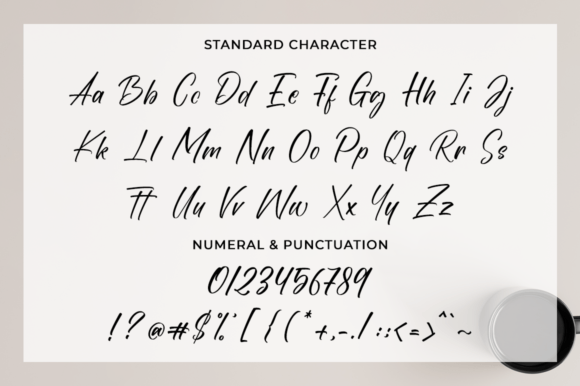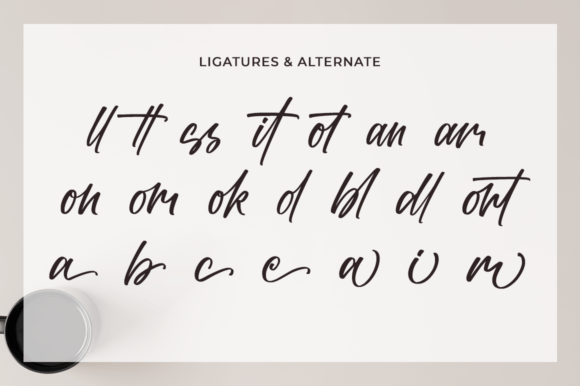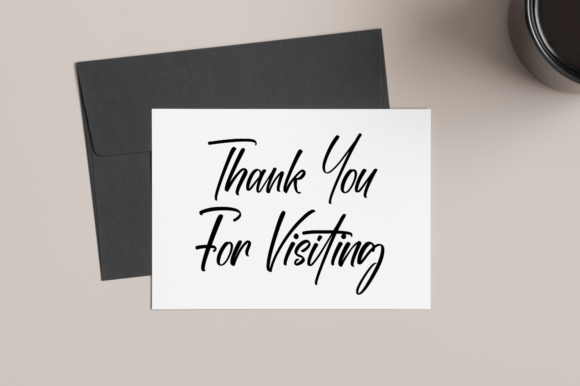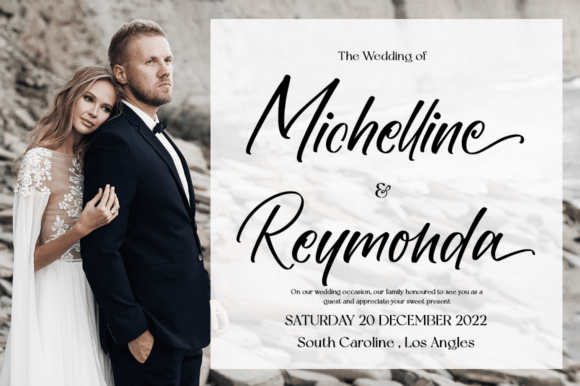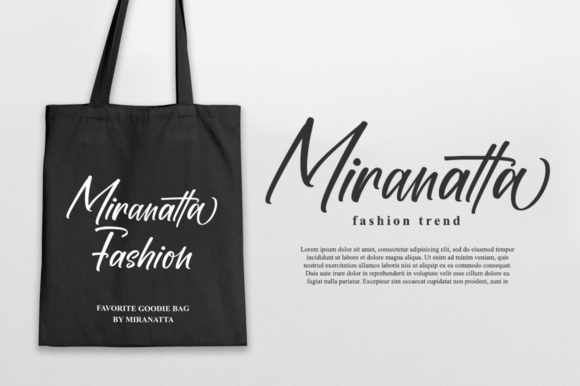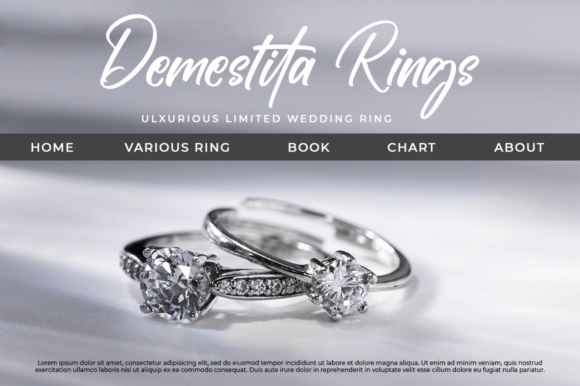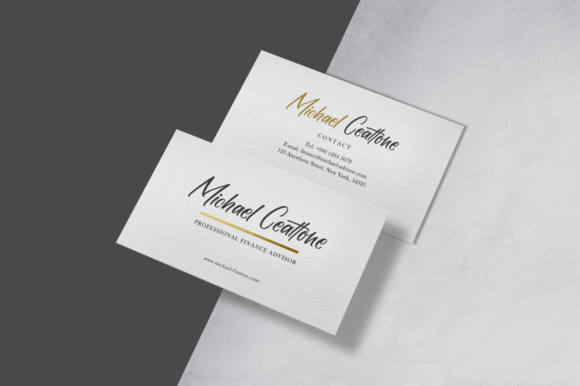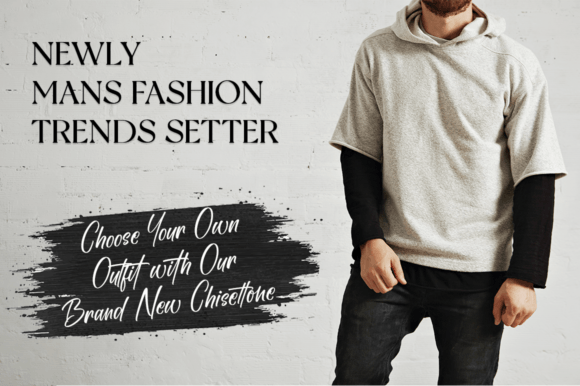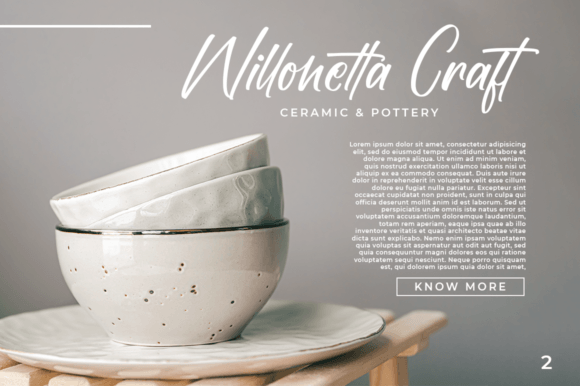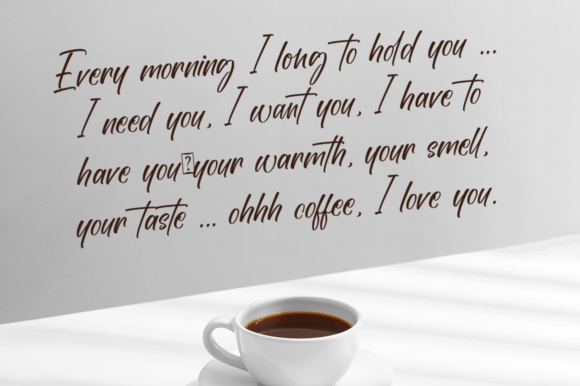
Vesatterine Font
A Beautiful and Delicate Handwritten Script
Vesatterine is a stunning handwritten font crafted to add elegance and a luxurious feel to any project. With graceful curves and refined strokes, it captures the beauty of true handwriting in a polished, professional way.
Whether you are designing wedding invitations, luxury branding, or social media graphics, Vesatterine instantly elevates your work with a sense of sophistication and charm.
Vesatterine is a versatile font that adapts beautifully to different design needs. For weddings, it’s ideal for invitations, place cards, and thank you notes. Its delicate style creates a romantic, memorable atmosphere.
For branding, Vesatterine is perfect on logos, packaging, and business cards. The refined handwritten look makes your brand feel exclusive and professional.
This font also shines on quotes, greeting cards, and product labels. Its smooth lines and artistic details ensure your text always feels personal and unique.
If you create social media content, Vesatterine helps your posts stand out with a clean, modern elegance. From Instagram stories to Pinterest graphics, this font makes every design feel intentional and polished.
Despite its luxurious feel, Vesatterine is clear and highly legible. The balanced letter spacing and smooth connections ensure your text is easy to read in any size, from large headlines to smaller captions.
For the best look, pair Vesatterine with a minimalist sans-serif font. Use Vesatterine for titles and special text, and the sans-serif font for supporting content. This approach keeps your designs clean and balanced.
To highlight Vesatterine’s elegant details, use neutral backgrounds and soft color palettes. Shades like ivory, blush, and warm gray work perfectly with its refined strokes.
When designing wedding stationery or luxury packaging, consider adding delicate flourishes or subtle textures. This will enhance the handwritten style without making the design feel crowded.
For social media graphics, use lots of white space and simple layouts. This lets Vesatterine be the star of the composition while keeping your content easy to read and visually appealing.
Think about the feeling you want to create. Vesatterine is perfect for projects that should feel graceful, romantic, and high-end.
Vesatterine isn’t just a handwritten font—it’s a creative asset that helps your designs feel special and sophisticated. From weddings to branding and beyond, it adapts to any project with ease.
Adding Vesatterine to your font library ensures you always have an elegant, versatile option ready to go. Whether you’re working on logos, invitations, or social media content, this font brings beauty and polish to every piece.